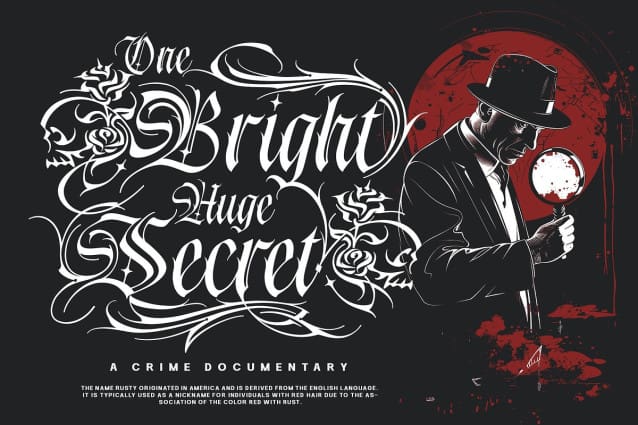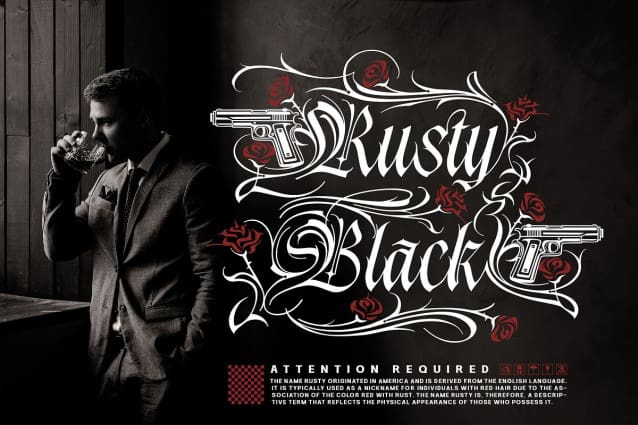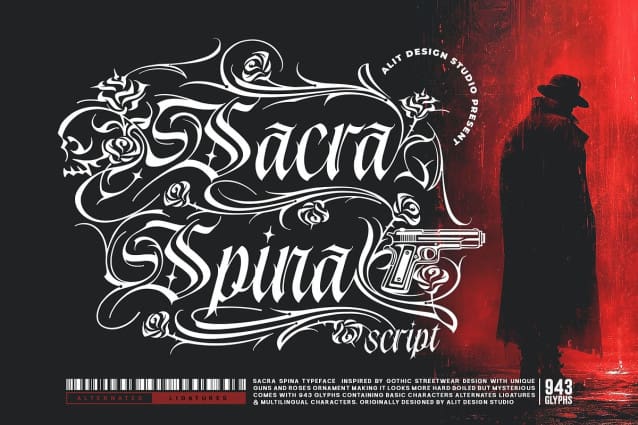
Sacra Spina Font
Sacra Spina Font – A Fierce Blackletter Typeface.Step into a world of shadow and intrigue with Sacra Spina, a blackletter typeface that bleeds attitude and sophistication.
Inspired by the raw energy of gothic streetwear and the clandestine world of classic mafia films, Sacra Spina is not just a font—it’s a statement. It masterfully blends the timeless elegance of traditional blackletter calligraphy with a modern, rebellious edge. Every character is crafted to be both ornate and intimidating, making it the perfect weapon for designs that demand to be noticed.
The true power of Sacra Spina lies in its immense versatility and unique decorative elements. The font is armed with an arsenal of stylistic alternates, allowing you to transform your text from classic script to a piece of custom art. Weave intricate roses and thorns through your lettering for a touch of dark romance, or integrate the hard-hitting pistol swashes for a design that is truly dangerous.